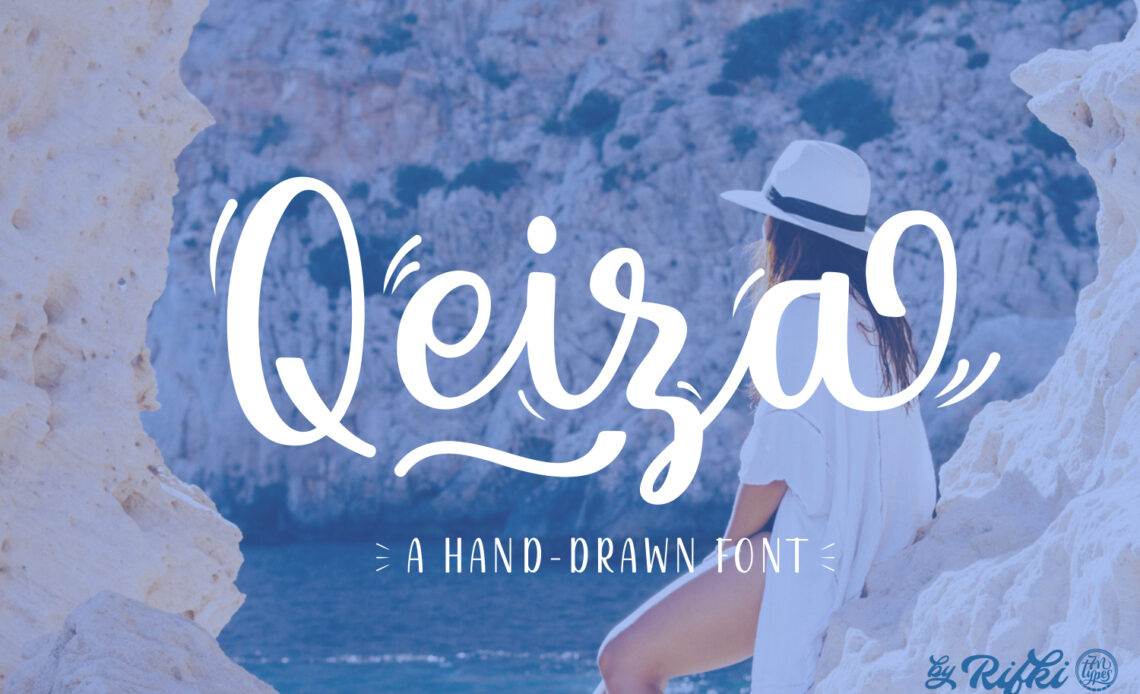
Qeiza Font
Font Name : Qeiza Font
Author : Rifki (7ntypes)
Introducing Qeiza Font, an enchanting script font that will transform your creative endeavors into visual masterpieces. With its graceful strokes and timeless elegance, Qeiza exudes a sense of warmth and familiarity that captivates hearts. Step into a world where your designs come alive with a story to tell, where every letter dances with individuality and charm.
Qeiza is your gateway to a world of endless possibilities. Its versatility shines through, whether you're crafting heartfelt invitations, designing captivating logos, or adding a touch of whimsy to your social media posts. The possibilities are limitless, and Qeiza will guide you with its unwavering charm.
Whether you're a seasoned designer or just starting your creative journey, Qeiza holds your hand and takes you on a magical expedition. Its flowing lines and organic curves create a visual symphony that's sure to leave a lasting impression. Each character is meticulously crafted, carrying within it a piece of the artist's soul, ready to infuse your designs with a touch of magic.
With Qeiza by your side, you'll discover a new realm of creativity, where imagination knows no bounds. Its handwritten style weaves a tapestry of stories, inviting your audience to embark on an emotional journey. Whether you're designing a heartfelt letter, creating a stunning poster, or crafting a captivating website, Qeiza will be your faithful companion, guiding you towards artistic greatness.
So, dear creative soul, embrace the allure of Qeiza Font and unlock the door to a world of boundless creativity. Let your imagination soar, let your heart guide your designs, and let Qeiza be the brush that paints your dreams onto the canvas of reality.